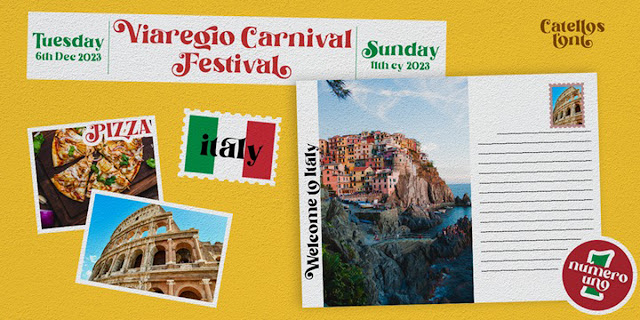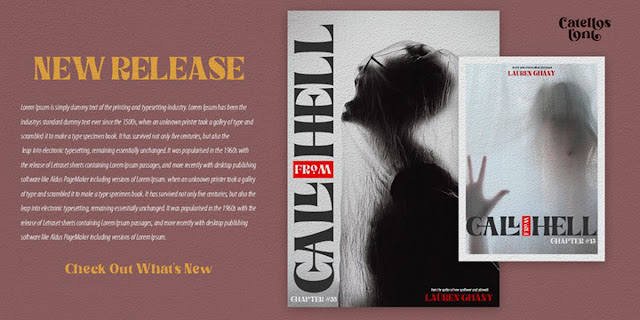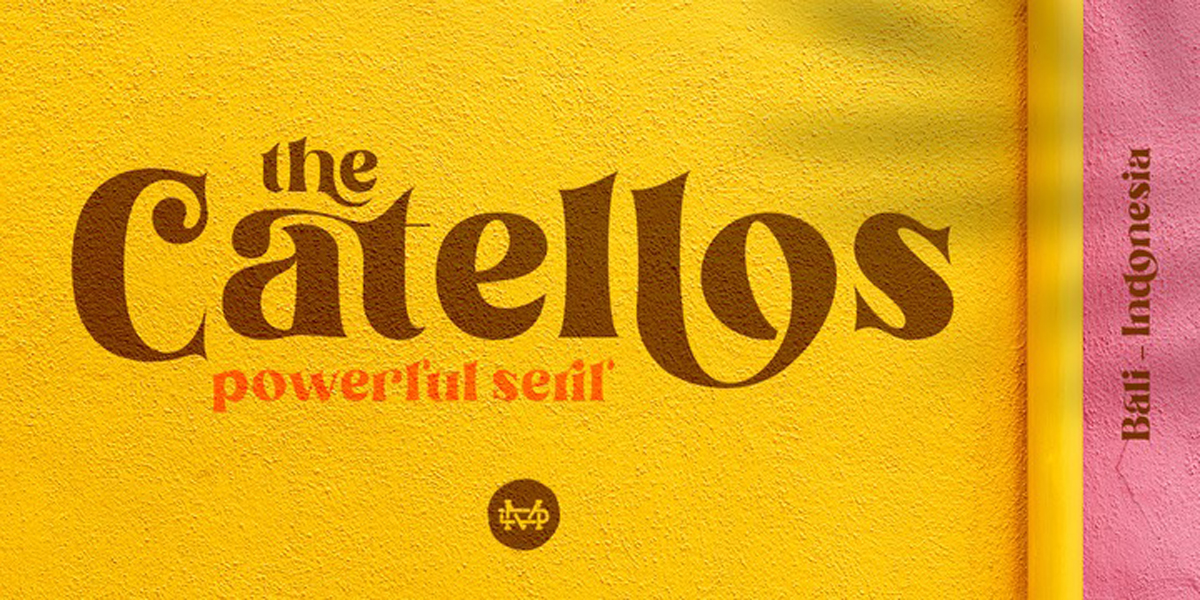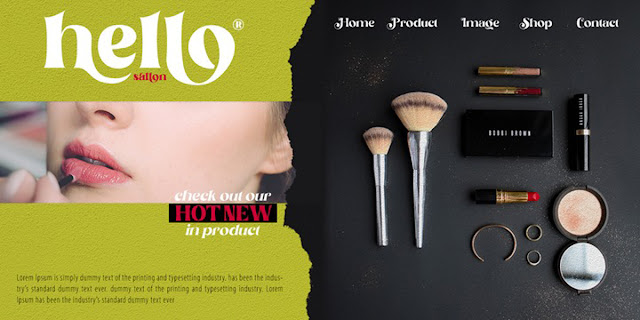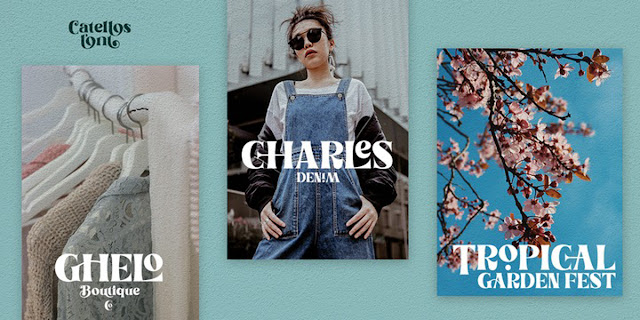
Catellos Font Family
Free Download Catellos Font Family with high speed direct link. Really excited to introduce Catellos is a serif family and comes with with two variant: Medium and Bold with many alternates and ligatures. It is suitable to create any branding, product packaging, invitation, quotes, t-shirts, labels, posters, logos and more.